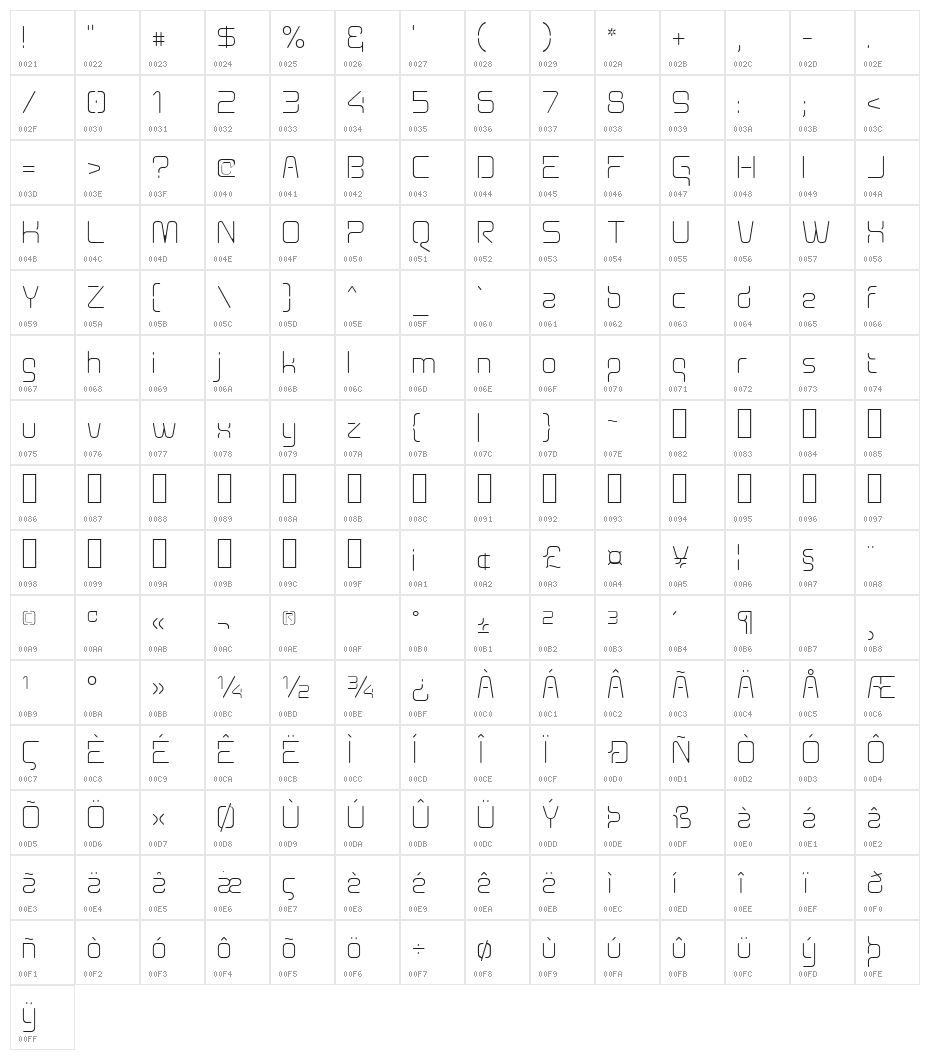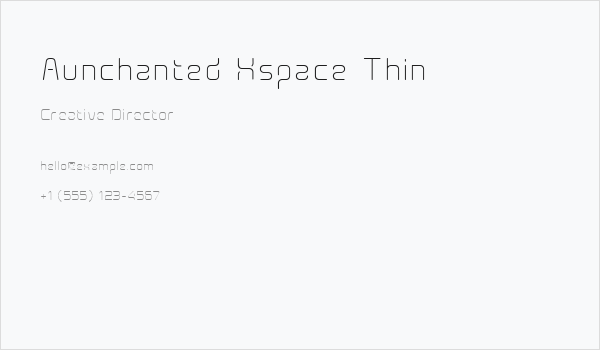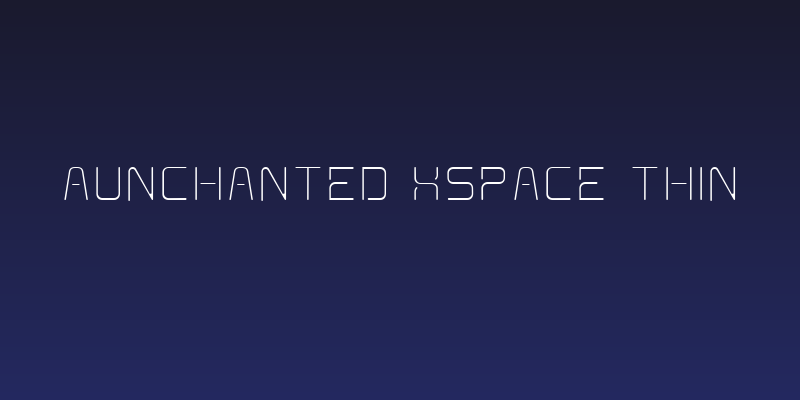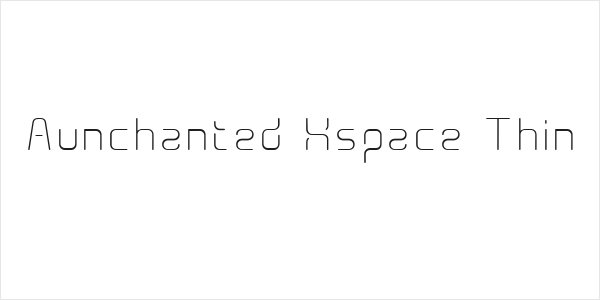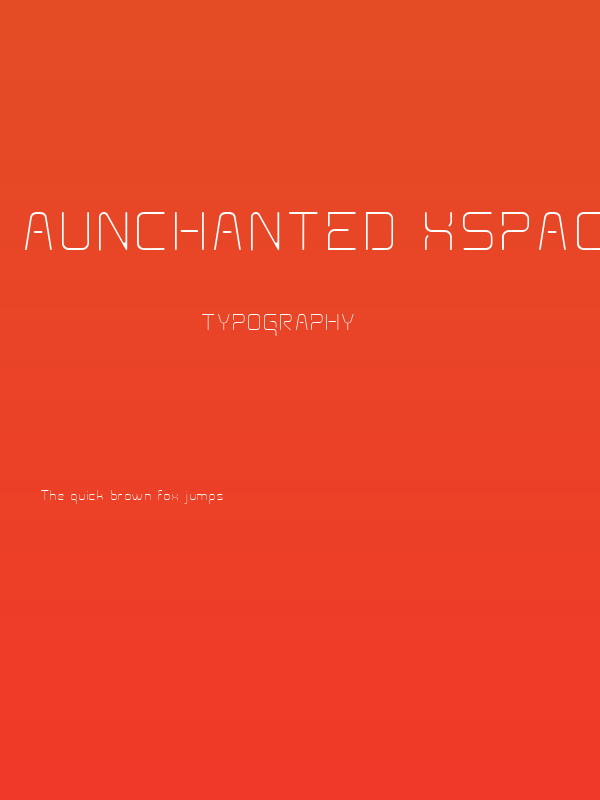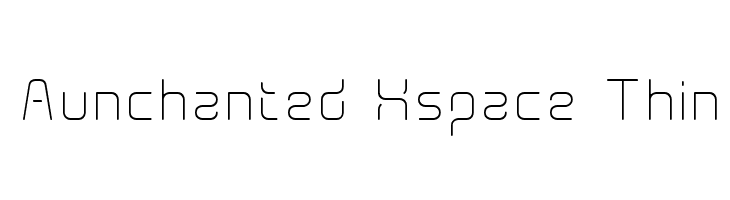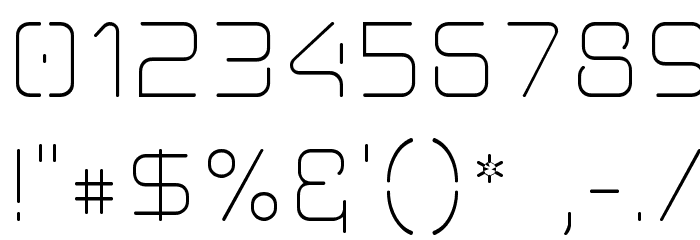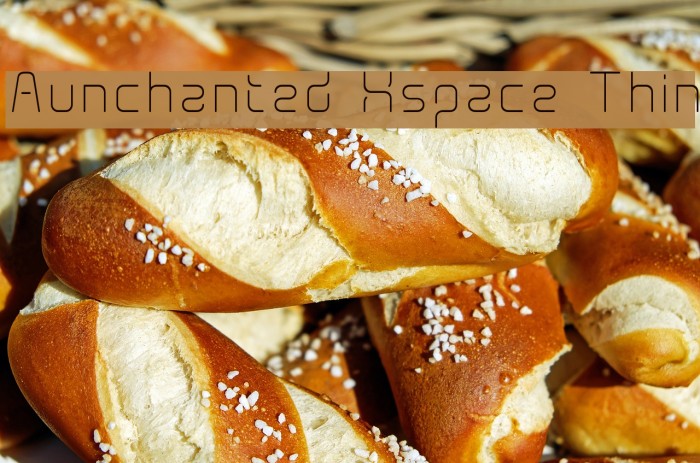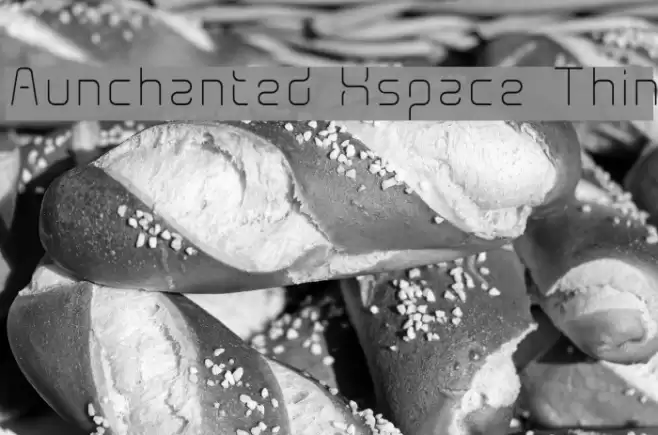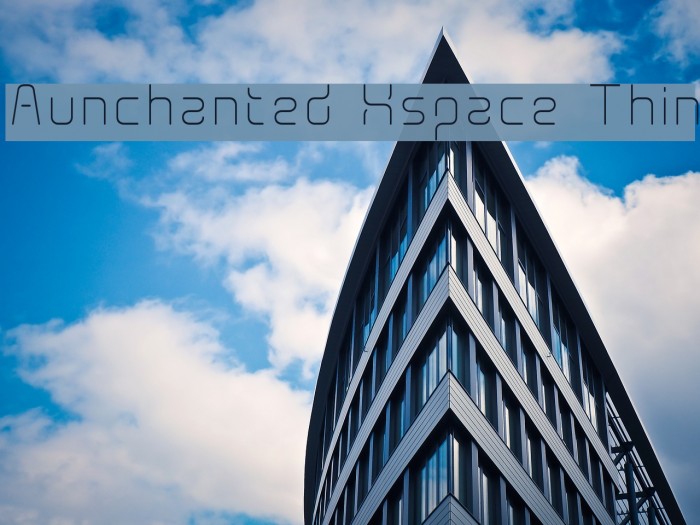
Aunchanted Xspace Thin Font
✎ Futuristic
Aunchanted Xspace Thin Description
This font features a sleek, futuristic design with a thin, geometric structure. The characters are composed of clean, straight lines and rounded corners, giving it a modern and minimalistic appearance. The uppercase letters are distinct with a uniform height, while the lowercase letters maintain a consistent style, enhancing readability. The numerals and special characters follow the same design principles, ensuring a cohesive look across all glyphs. Its unique style makes it suitable for projects that require a contemporary and innovative touch.
| Use Case | Logos, Headlines, Display text |
| Proposed Projects | Ideal for tech branding, modern web design, and innovative product packaging. |